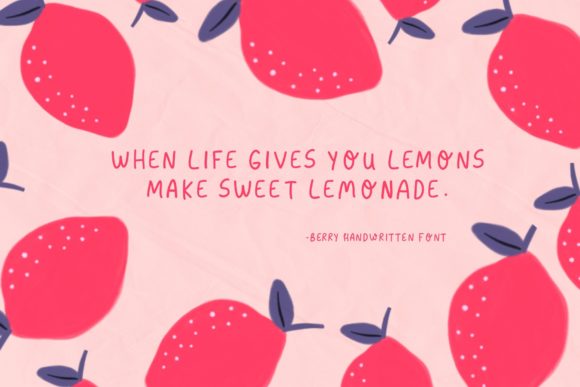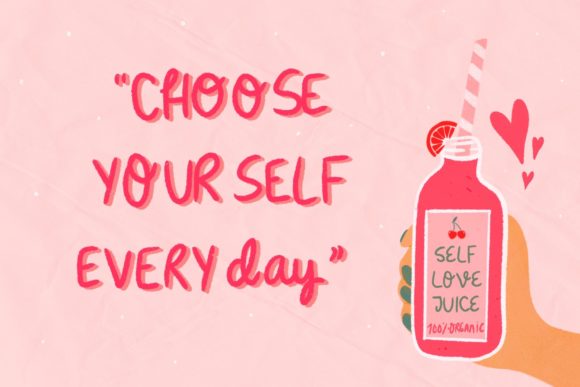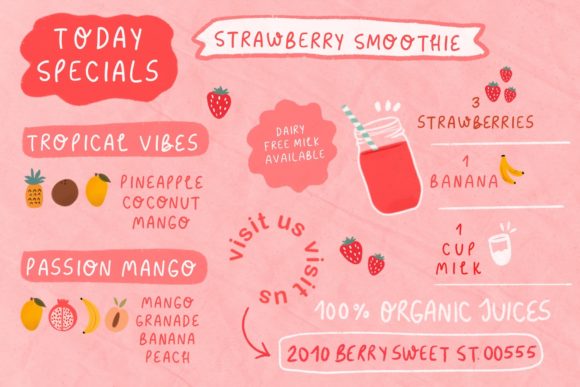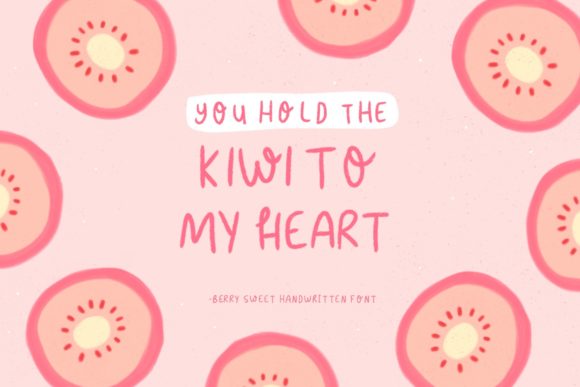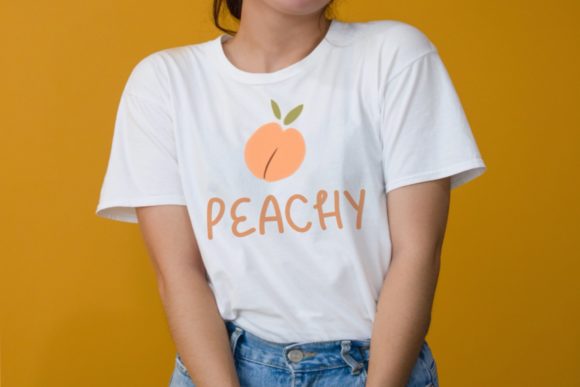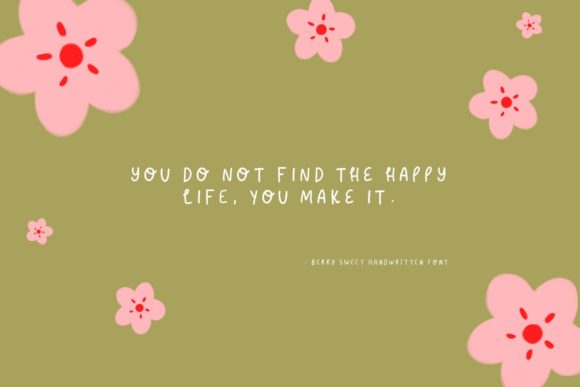
Berry Sweet Font: The Ultimate Handwritten Font Duo for Creative Projects
Are you a designer, crafter, or DIY enthusiast looking for a font that can add a personal touch to your projects? Look no further than the Berry Sweet Font, a charming handwritten font duo that’s perfect for creating quotes, blogs, logos, branding, and more. In this article, we’ll dive into the features and benefits of Berry Sweet Font and explore how you can use it to unleash your creativity.
What is Berry Sweet Font?
Berry Sweet Font is a delightful handwritten font duo that’s designed to bring a touch of warmth and personality to your projects. This font is perfect for anyone who wants to add a hand-written touch to their digital or print materials, from social media graphics to T-shirt designs. With its lovely graphics and versatile style, Berry Sweet Font is an excellent choice for a wide range of creative projects.
Key Features of Berry Sweet Font
- Cute and Handwritten Style: Berry Sweet Font features a charming handwritten style that’s perfect for creating quotes, blogs, and other text-based projects.
- Font Duo: This font comes as a duo, offering two unique styles that can be used together or separately to create stunning text combinations.
- Lovely Graphics: Berry Sweet Font includes a range of graphics that you can use to add a personal touch to your projects.
- Multi-Purpose: This font is perfect for a wide range of projects, including digital planners, social media graphics, stickers, T-shirt designs, and more.
Benefits of Using Berry Sweet Font
So, why should you choose Berry Sweet Font for your projects? Here are just a few benefits of using this amazing font:
- Easily Create Stunning Text: With Berry Sweet Font, you can create beautiful, eye-catching text that’s sure to grab attention.
- Add a Personal Touch: This font’s handwritten style adds a personal touch to your projects, making them feel more unique and special.
- Increase Creativity: The lovely graphics and versatile style of Berry Sweet Font can help inspire your creativity and take your projects to the next level.
- Save Time: With Berry Sweet Font, you can quickly and easily create stunning text and graphics, saving you time and effort.
How to Use Berry Sweet Font
Using Berry Sweet Font is easy! Here are a few ideas to get you started:
- Digital Planners: Add a personal touch to your digital planners with Berry Sweet Font’s beautiful handwritten style.
- Social Media Graphics: Create stunning social media graphics with Berry Sweet Font’s lovely graphics and versatile style.
- Stickers and T-Shirt Designs: Use Berry Sweet Font to create adorable stickers and T-shirt designs that are sure to stand out.
- Branding and Logos: Create a unique brand identity with Berry Sweet Font’s charming handwritten style.
Tips and Tricks for Working with Berry Sweet Font
Here are a few tips and tricks to help you get the most out of Berry Sweet Font:
- Experiment with Different Styles: Try pairing Berry Sweet Font’s two styles together or using them separately to create different text combinations.
- Add Graphics and Images: Use Berry Sweet Font’s lovely graphics to add a personal touch to your projects.
- Play with Colors and Textures: Experiment with different colors and textures to add depth and interest to your projects.
Berry Sweet Font is a charming handwritten font duo that’s perfect for designers, crafters, and DIY enthusiasts who want to add a personal touch to their projects. With its lovely graphics, versatile style, and multi-purpose design, Berry Sweet Font is an excellent choice for a wide range of creative projects. Whether you’re creating digital planners, social media graphics, stickers, or T-shirt designs, Berry Sweet Font is sure to inspire your creativity and help you create stunning text and graphics.